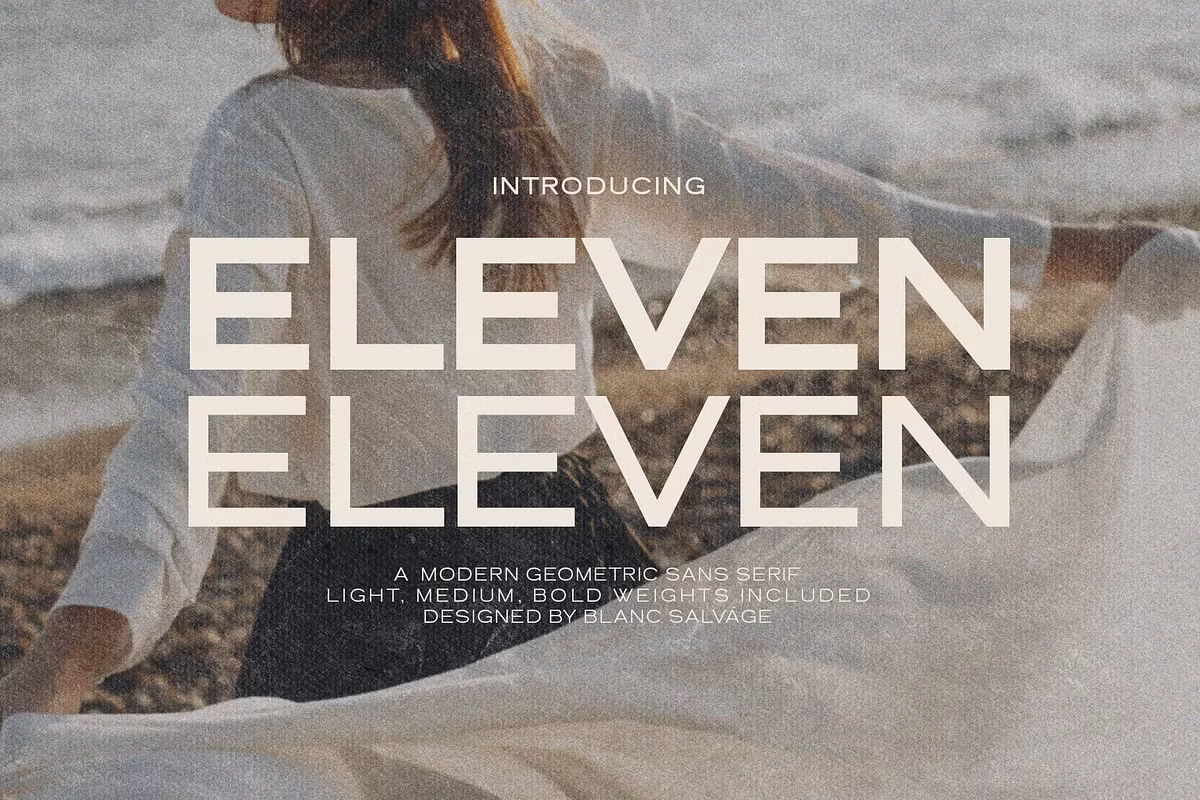
Eleven Eleven Modern Geometric Sans Font Free Download is a sleek and contemporary typeface that combines clean geometric shapes with a modern, minimalist aesthetic. Perfect for logos, branding, websites, and editorial designs, this font offers excellent readability while maintaining a bold, stylish look. Its versatile design makes it suitable for a variety of projects, from professional corporate identities to creative, cutting-edge campaigns. Whether you’re working on a modern tech brand, a sleek website, or a dynamic marketing piece, Eleven Eleven Modern Geometric Sans Font Free Download allows you to experiment with its clean lines in personal projects before purchasing a commercial license. Add sophistication and clarity to your designs with this beautifully crafted geometric sans font.